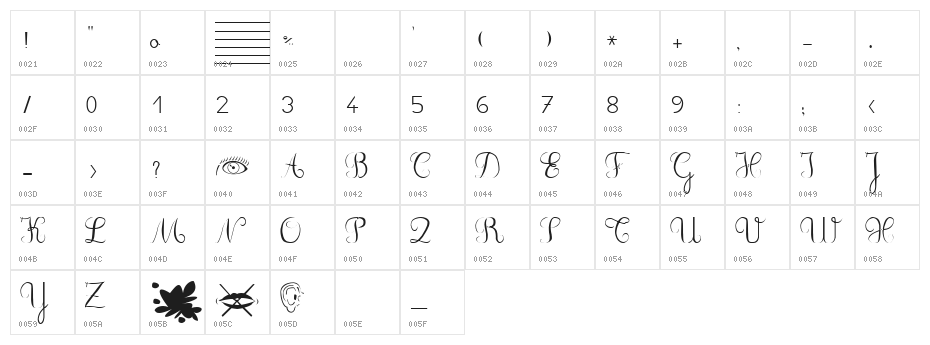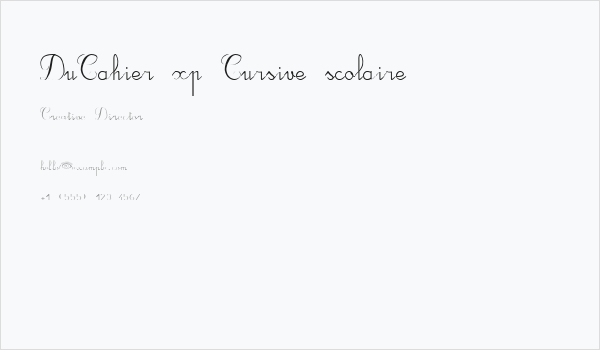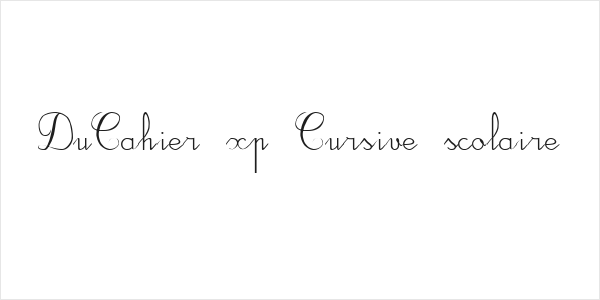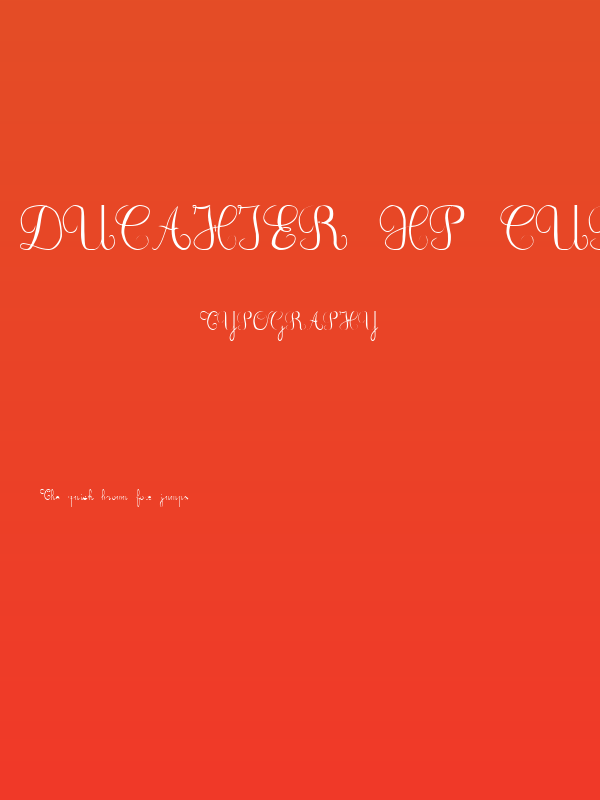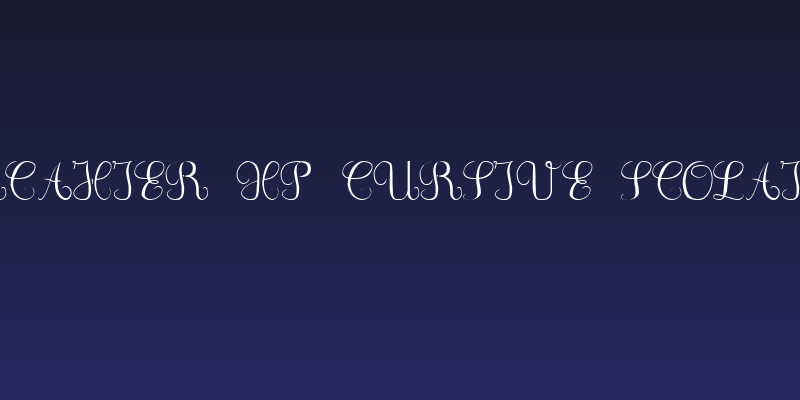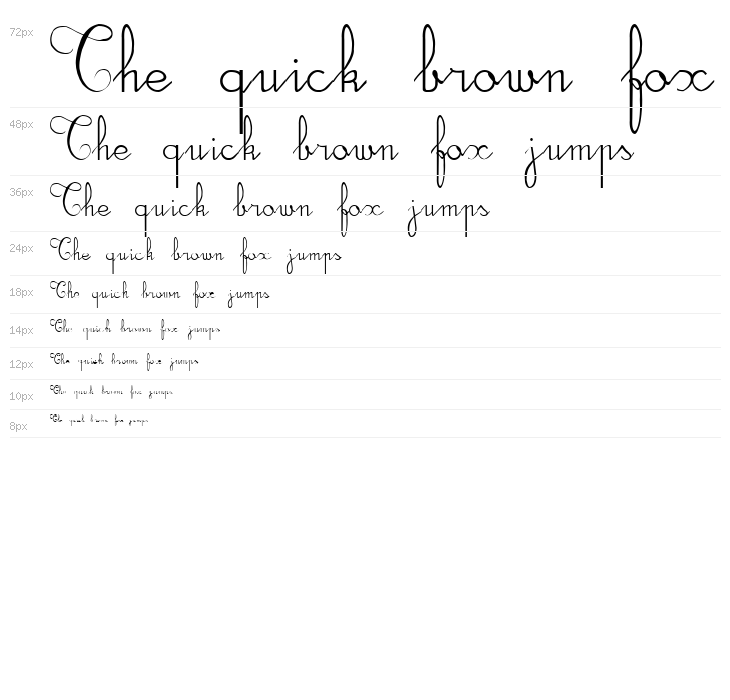
DuCahier xp Cursive scolaire Font
DuCahier xp Cursive scolaire Description
This font features an elegant cursive style with flowing, interconnected letters that mimic traditional handwriting. The uppercase letters are ornate, with intricate loops and swirls, while the lowercase letters maintain a more straightforward, yet still graceful, appearance. The numerals are clean and simple, contrasting with the decorative nature of the alphabet. Special characters are thoughtfully designed to match the overall aesthetic. This font exudes a sense of sophistication and charm, making it suitable for projects that require a personal touch.